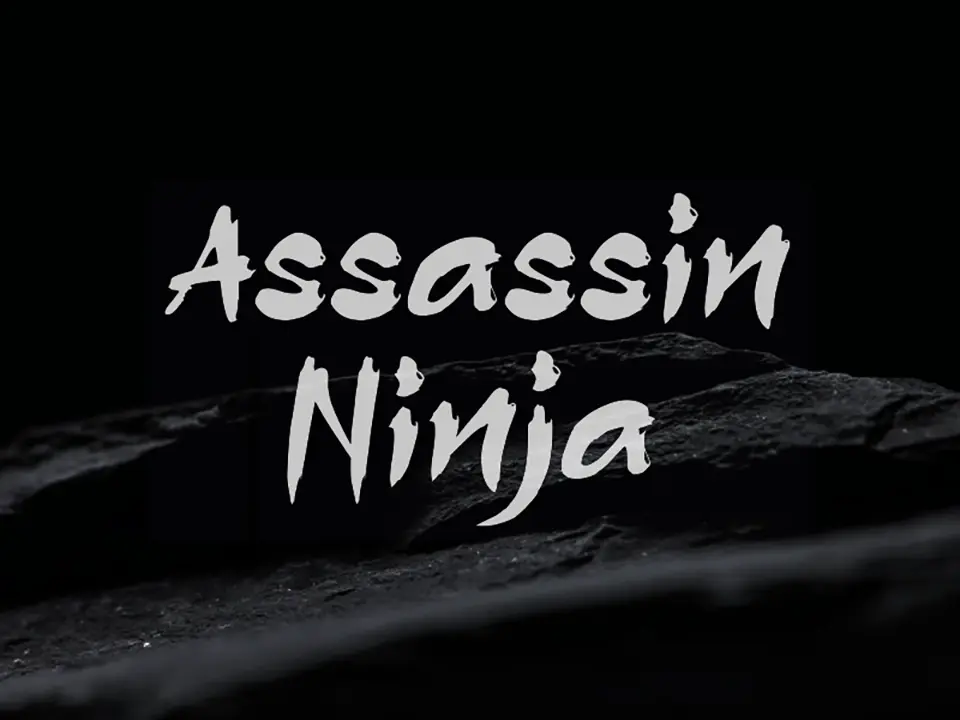
a Assassin Ninja Font
The a Assassin Ninja font delivers a raw, high-energy brush script experience defined by rapid, sweeping strokes and heavily textured edges. Its letterforms feature uneven weights and tight spacing, capturing the authentic, gritty feel of a dry ink brush. This aggressive, martial arts-inspired typeface performs exceptionally well in high-impact scenarios like e-sports team branding, streetwear apparel graphics, and action-oriented movie titles where conveying motion is critical. Compared to traditional scripts, it completely embraces chaotic imperfection. However, its heavy texture severely limits legibility at smaller sizes. You should avoid using this typeface for body copy, formal wedding invitations, or any corporate branding that requires a clean, polished, and highly legible appearance.
E-sports and gaming team logos
Streetwear apparel graphics
Action movie and event posters
High-impact social media headers
Dense paragraphs and body text
Formal corporate branding
Minimalist website UI design
Perfect for branding, gaming, and logo, with a artistic and brush style.